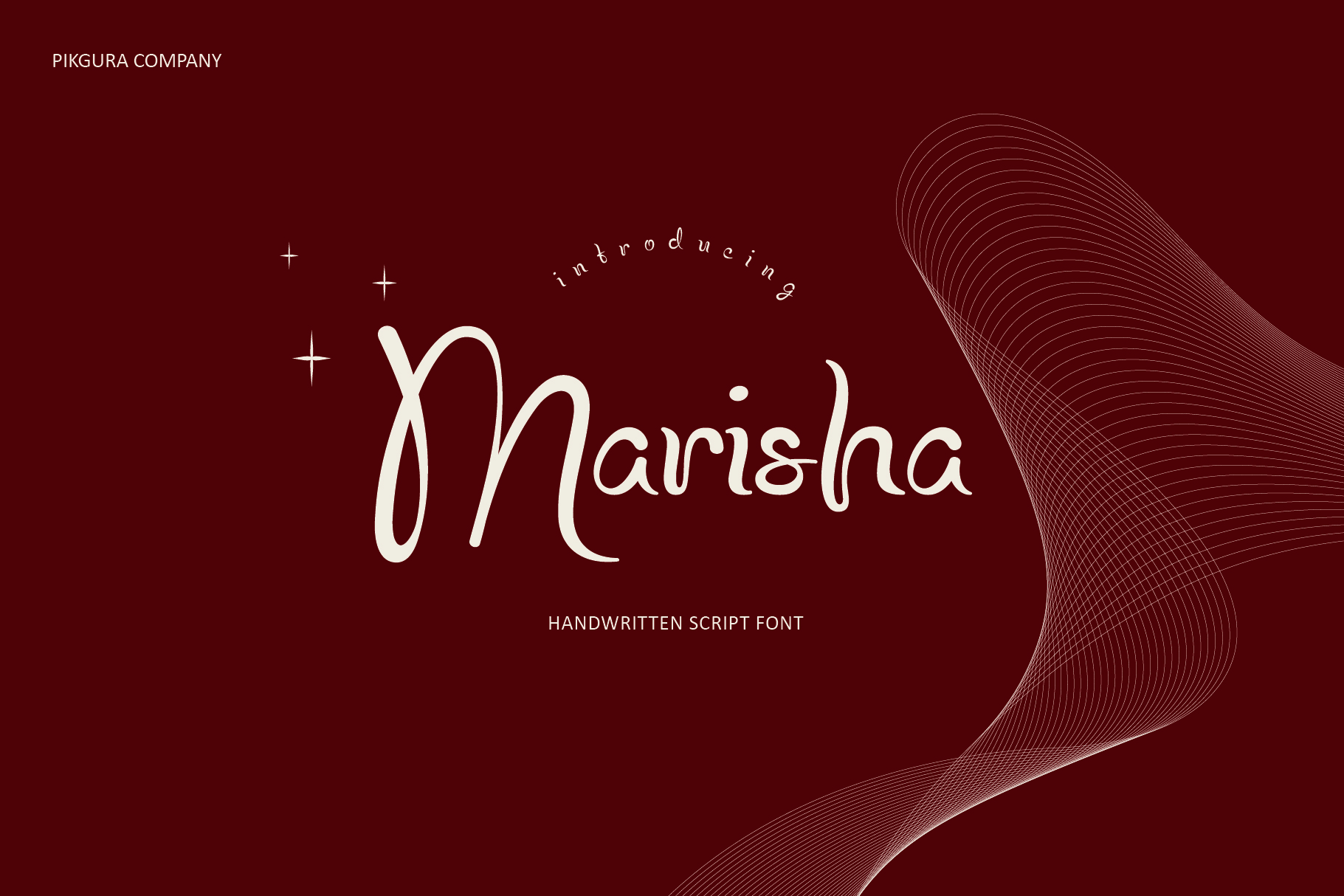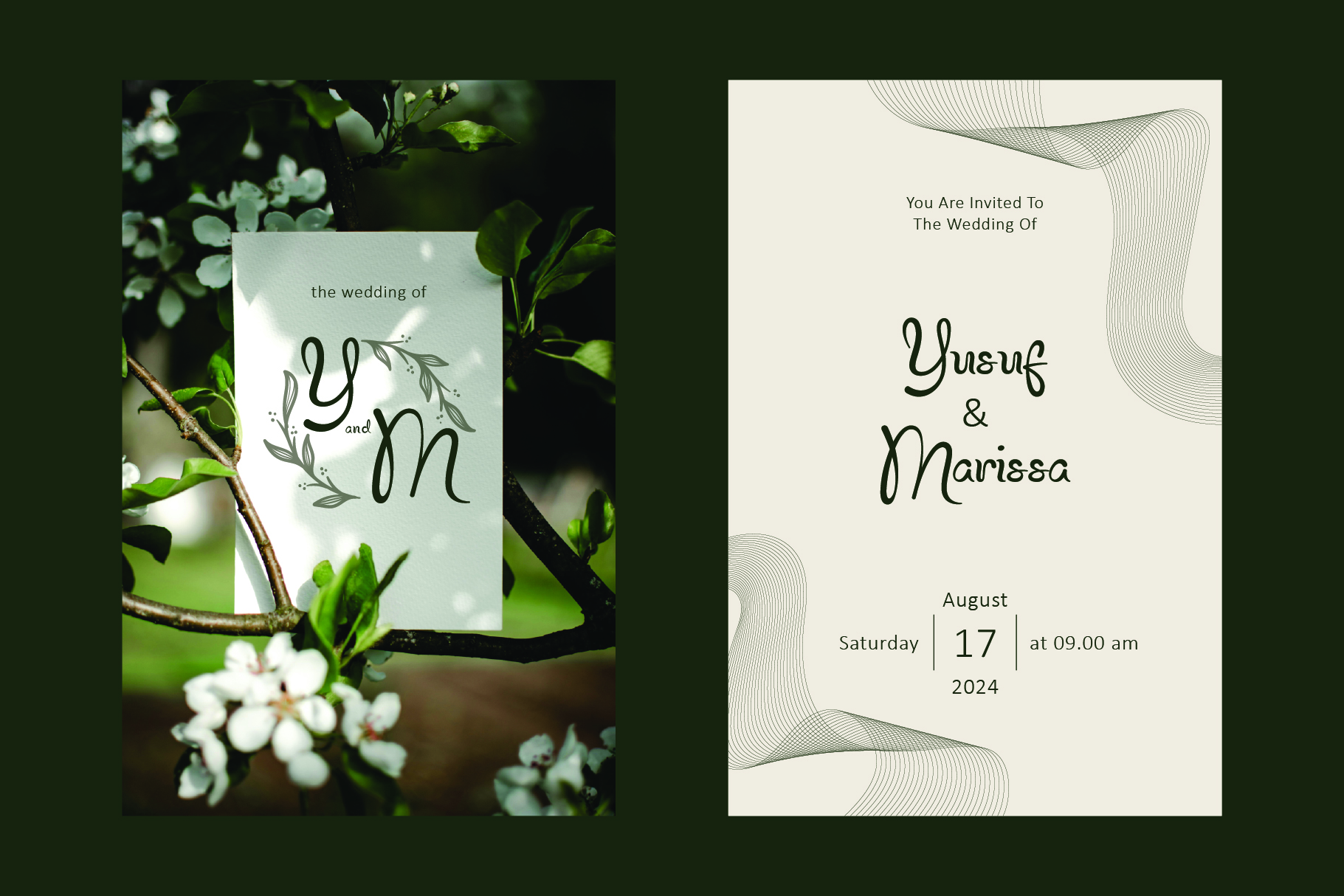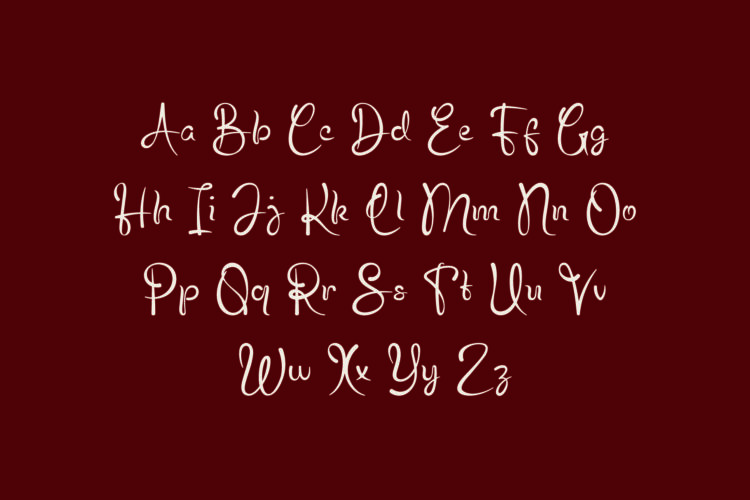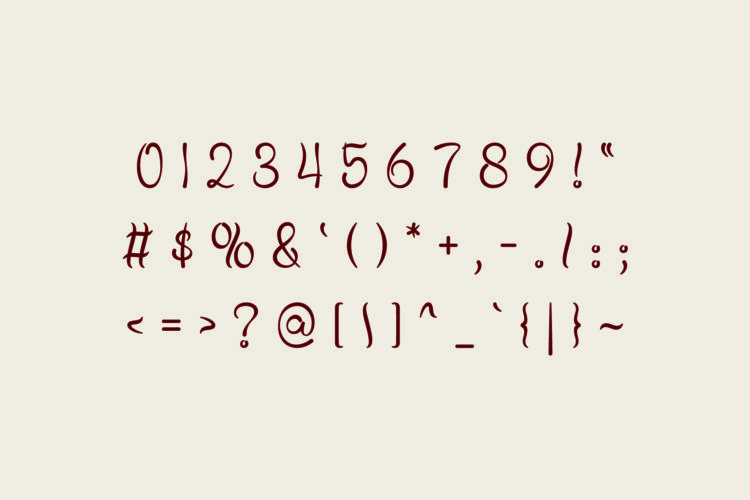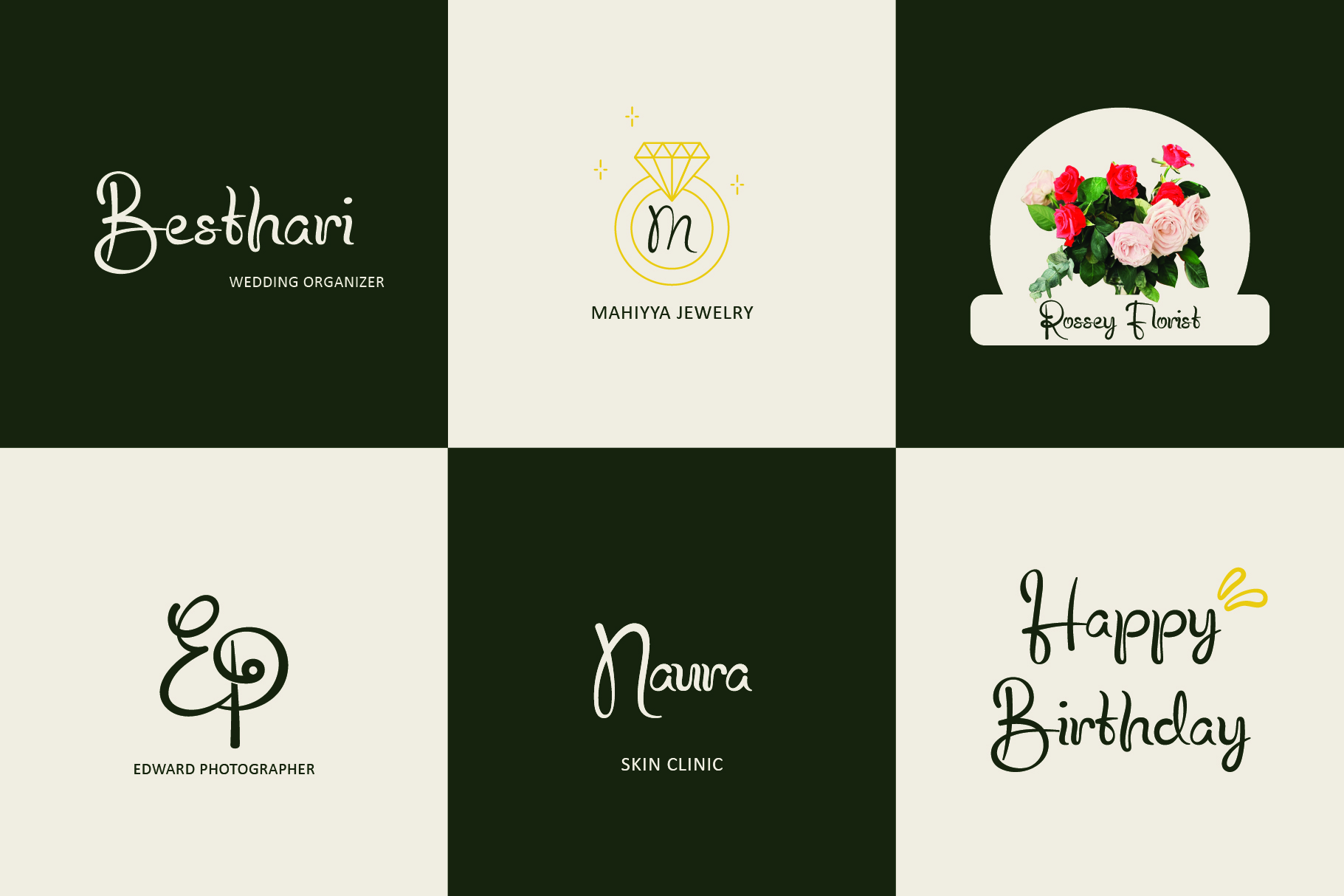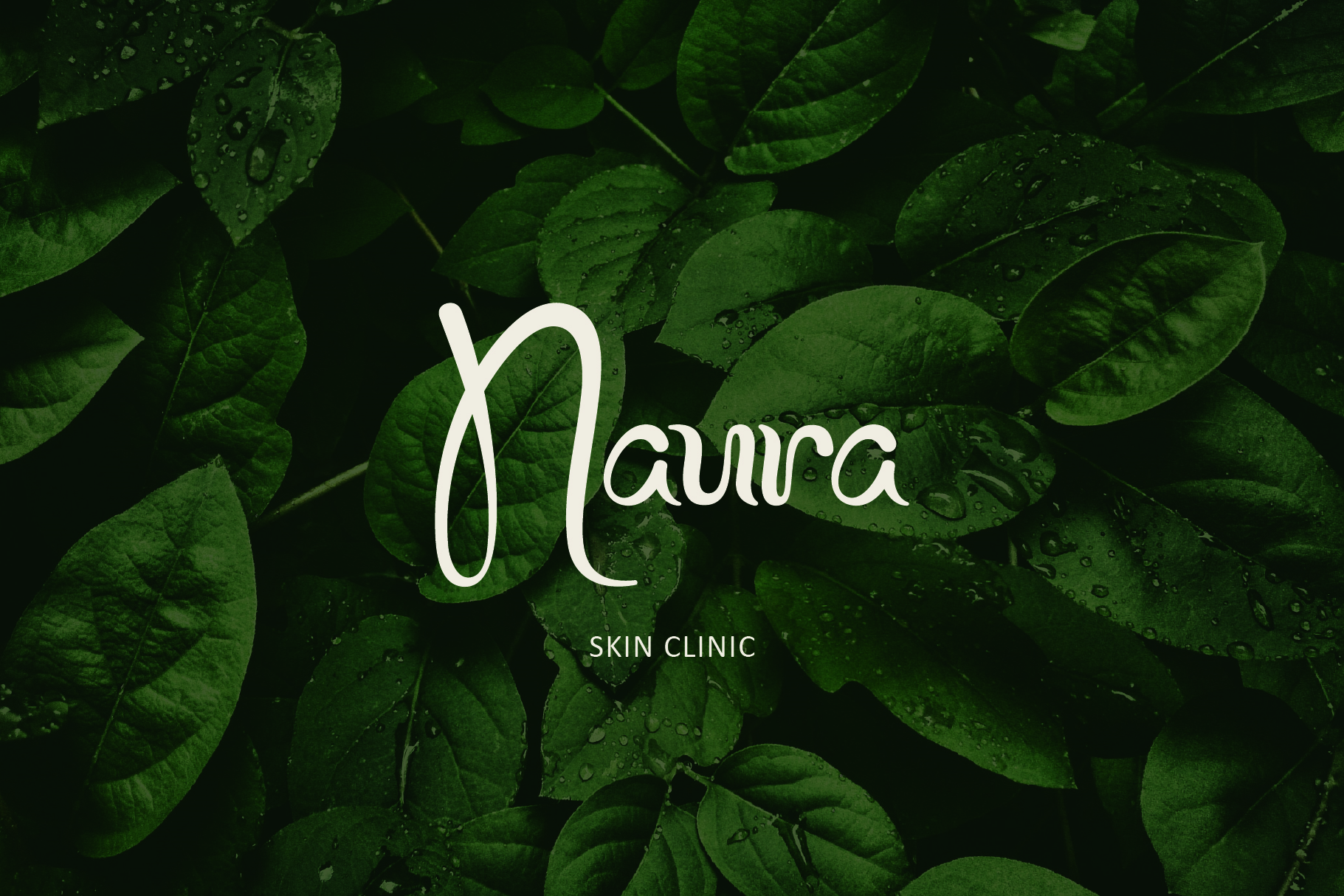
PGR Marisha
Whether you’re creating wedding invitations, greeting cards, or logos, Marisha is the ideal choice. Its elegant lines and refined style elevate your designs beautifully.
PGR Marisha – Script Font